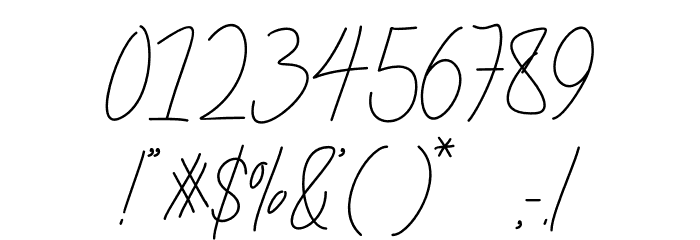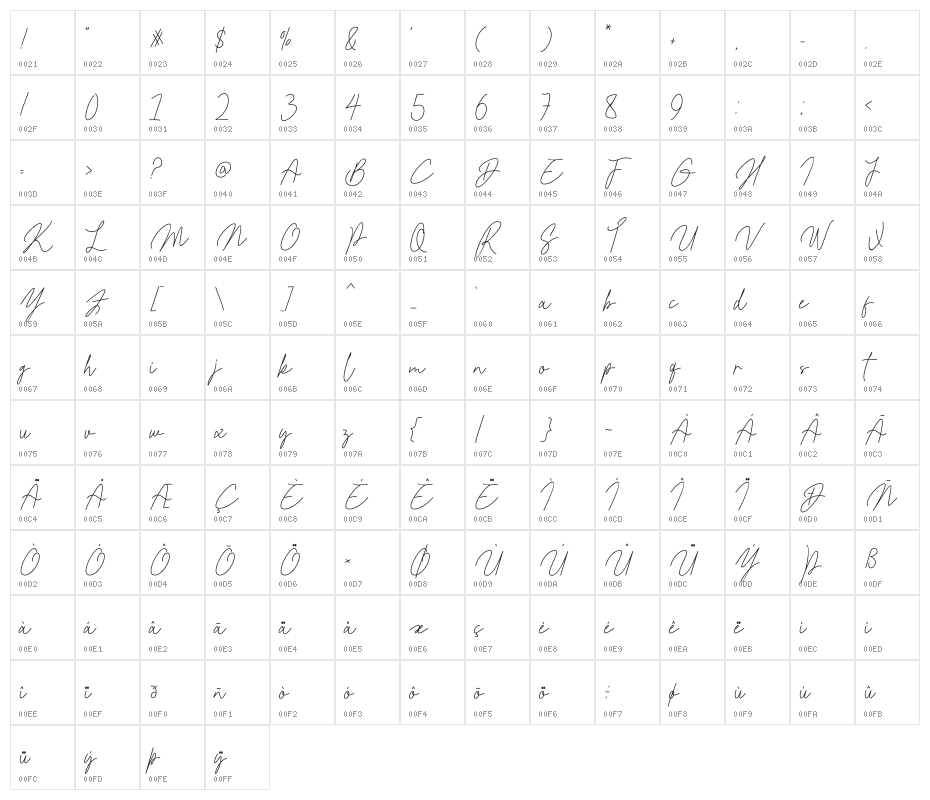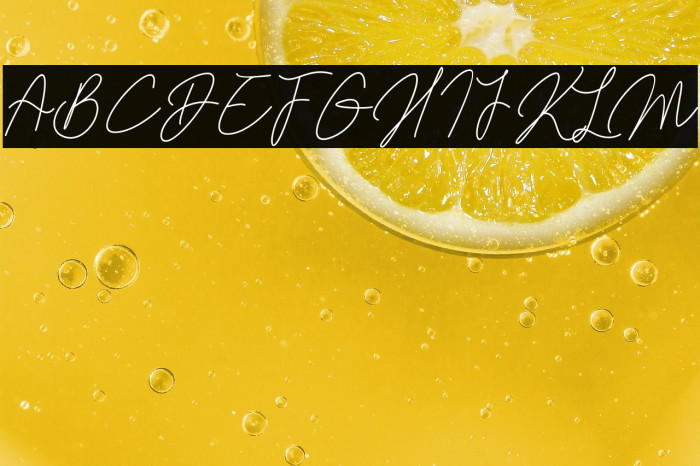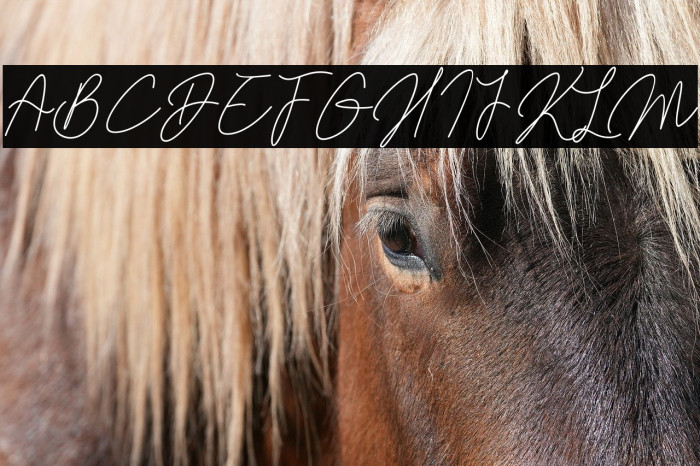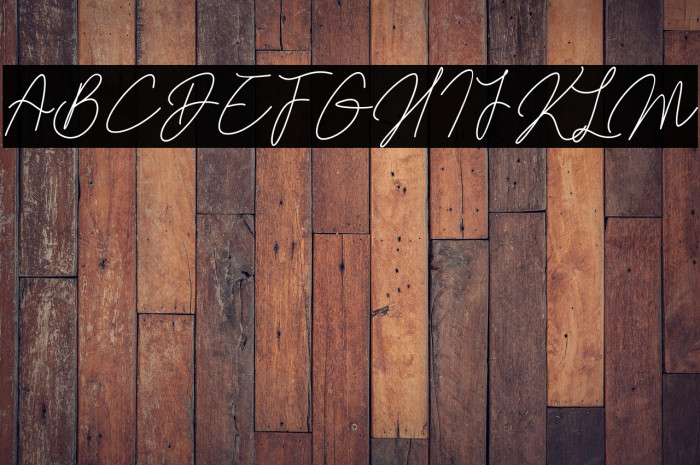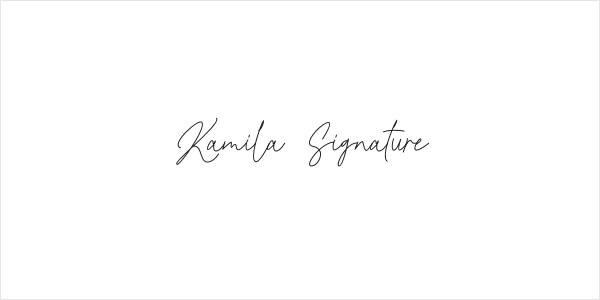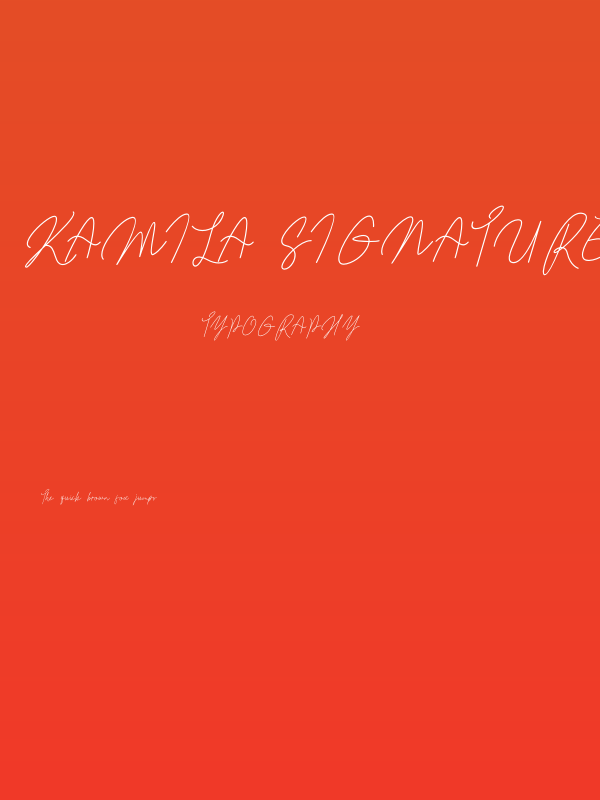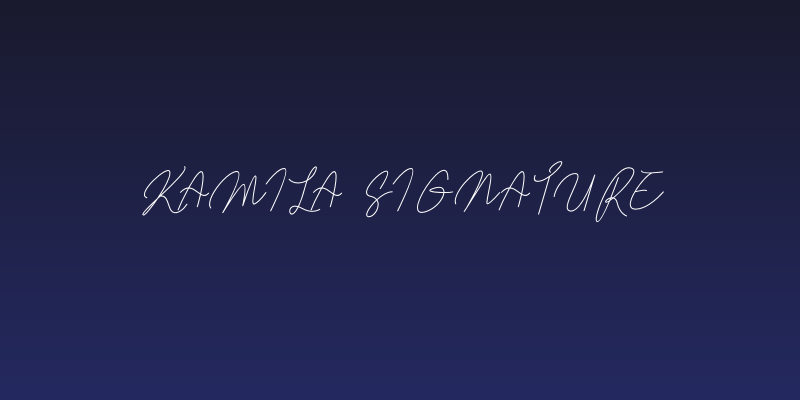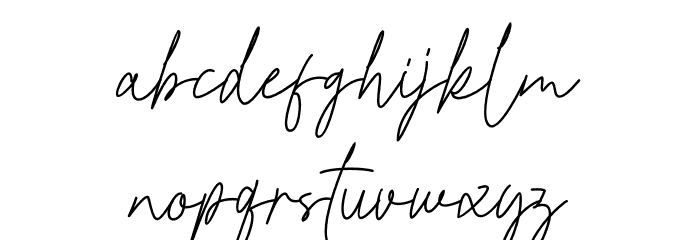
Kamila Signature Font
Kamila Signature Description
This elegant script font features a flowing, handwritten style that exudes sophistication and charm. The letters are gracefully connected, with smooth curves and delicate lines that mimic the fluidity of natural handwriting. The uppercase letters are slightly more ornate, while the lowercase letters maintain a consistent, flowing appearance. The numerals and special characters are designed to complement the overall aesthetic, maintaining the same graceful and fluid style. This font is perfect for adding a personal touch to any project, with its refined and stylish appearance.
Overall StyleElegant